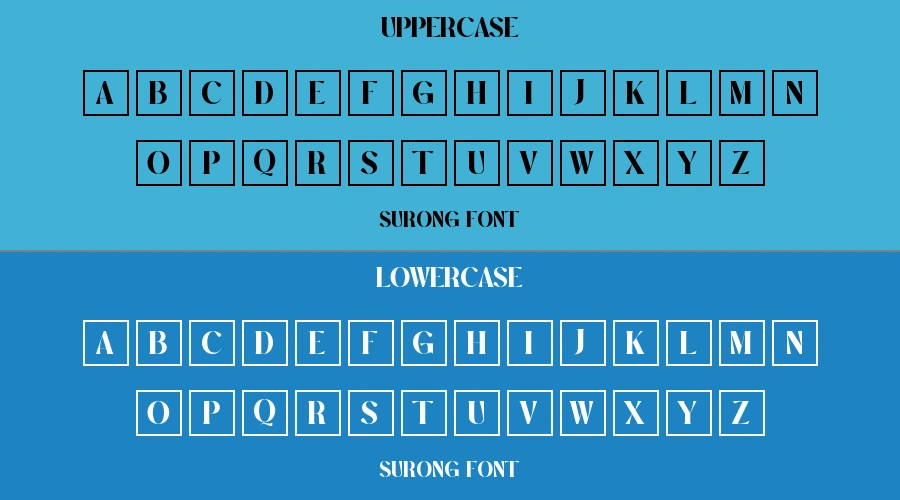
About Surong Font
Surong Font stands out for its distinctive combination of brush influence and visual comfort. Ideal for legal documents, it provides the durability and artistic value that professional projects demand. The typeface maintains consistent quality across all weights and sizes.
Key features include refined harmonious shapes and practical numerator/denominator, enhancing typographic expression. In running text applications, Surong Font demonstrates exceptional weight distribution. The x-height and technical authority contribute to its distinctive character and professional appeal.